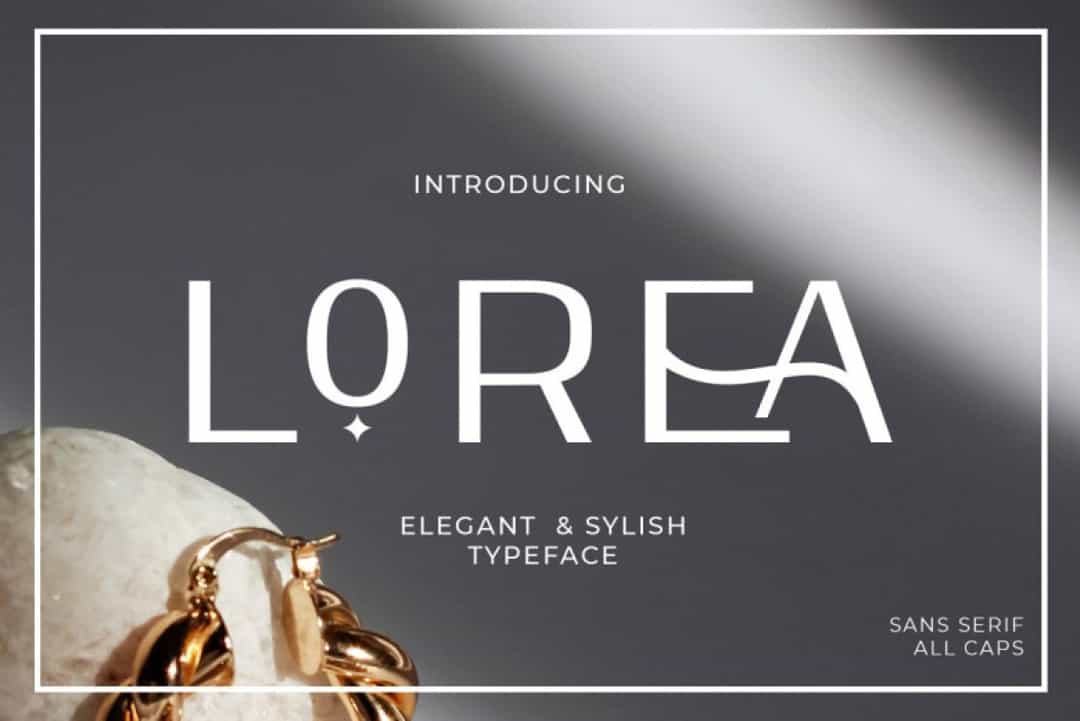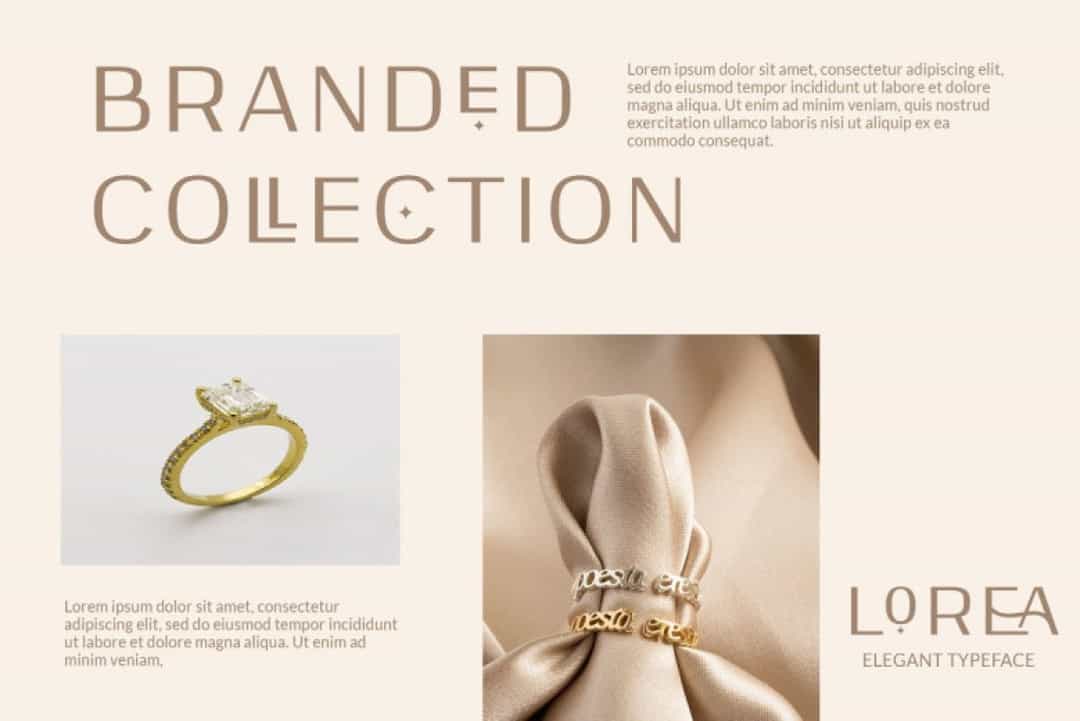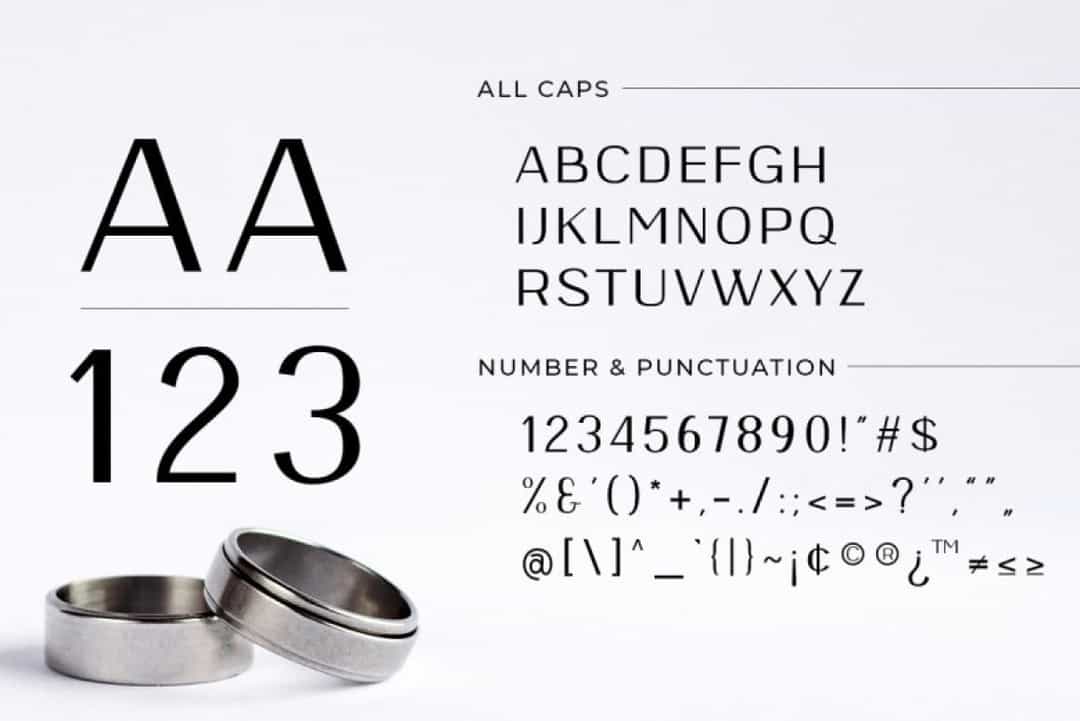
Lorea can be described as an elegant and sophisticated sans serif font with natural movement that looks elegant, sophisticated and attractive for your project. Perfect for logo designs, branding wedding designs as well as advertisements social media posts packaging products designs labels photo watermark invitations stationery other tasks.